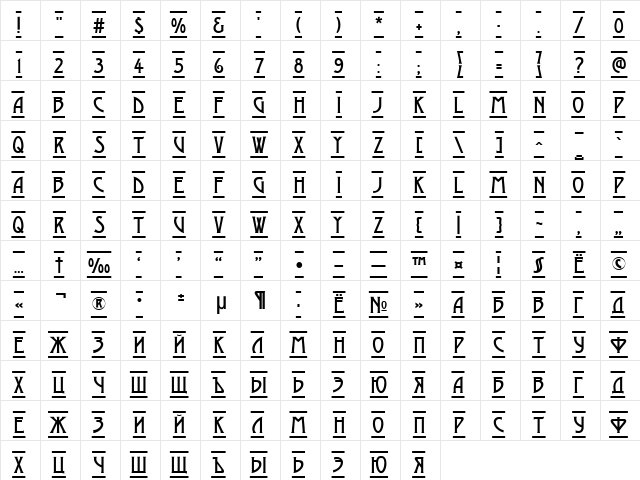
a_ModernoDcFr Regular
Design Context for a_ModernoDcFr Typeface
a_ModernoDcFr is a composed and adaptable typeface that performs quietly and consistently across a wide range of design contexts.